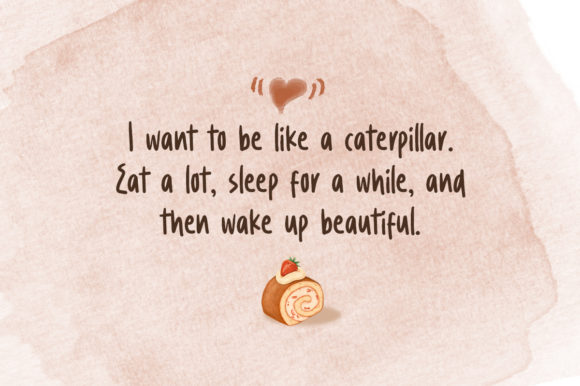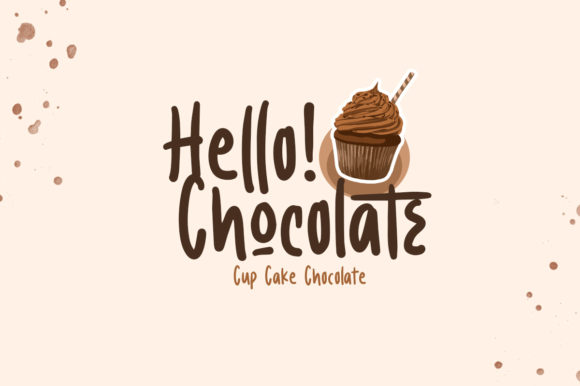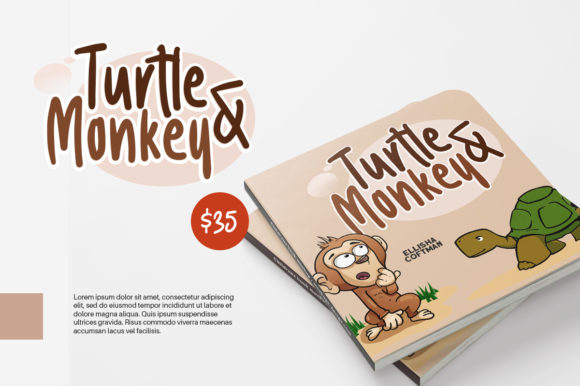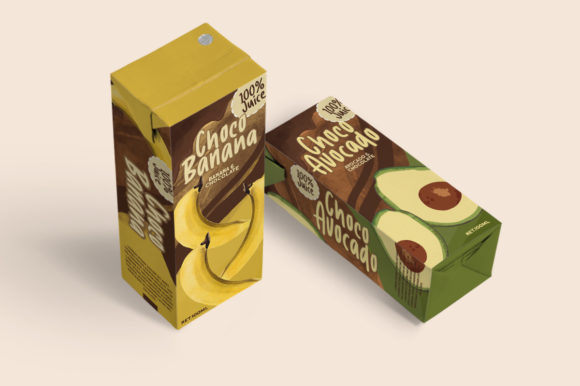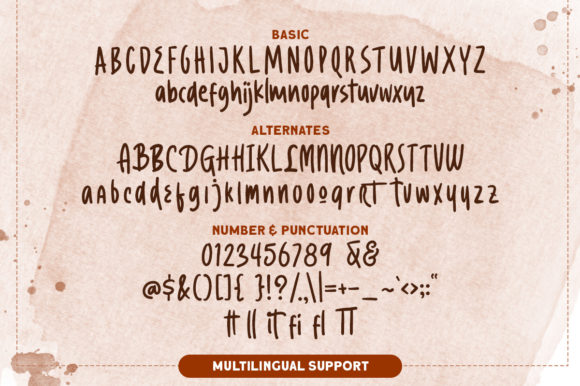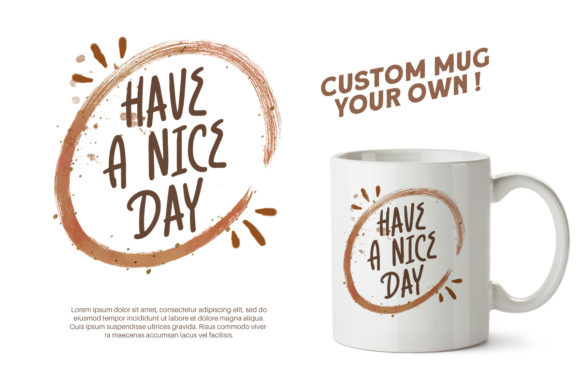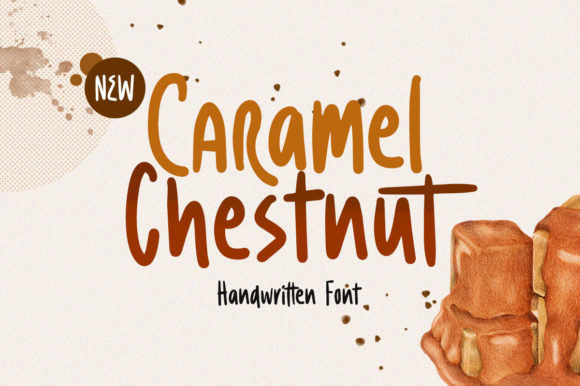
Introducing Caramel Chestnut Font: A Deliciously Quirky Display Font
Are you tired of using the same old fonts for your designs? Look no further than the Caramel Chestnut font! This unique and interesting display font is sure to add a touch of personality to any project. With its quirky charm, Caramel Chestnut is a great choice for a wide variety of contexts, from crafting and DIY projects to branding and advertising.
The Inspiration Behind Caramel Chestnut
Caramel Chestnut is a font that is inspired by the warmth and richness of caramel and the earthy tones of chestnuts. The font’s creator aimed to capture the essence of these delicious treats and put it into a font that would be both fun and functional. The result is a font that is both playful and sophisticated, making it perfect for designers and crafters who want to add a little something extra to their work.
What Makes Caramel Chestnut So Special?
So, what sets Caramel Chestnut apart from other fonts? Here are just a few things that make it so special:
- Unique Character Set: Caramel Chestnut has a unique character set that includes a range of letters, numbers, and punctuation marks. The font also includes a number of alternative characters and ligatures, making it perfect for creating custom designs.
- Quirky Charm: Caramel Chestnut has a quirky charm that is hard to find in other fonts. The font’s irregular shapes and playful curves make it perfect for adding a touch of personality to any design.
- Highly Versatile: Despite its quirky nature, Caramel Chestnut is a highly versatile font that can be used in a wide range of contexts. Whether you’re designing a logo, creating a craft project, or working on a branding campaign, Caramel Chestnut is a great choice.
Using Caramel Chestnut in Your Designs
So, how can you use Caramel Chestnut in your designs? Here are a few ideas to get you started:
- Crafting and DIY Projects: Caramel Chestnut is a great choice for crafting and DIY projects, such as making signs, labels, and other decorative items.
- Branding and Advertising: The font’s unique character and quirky charm make it perfect for branding and advertising campaigns that want to stand out from the crowd.
- Digital Designs: Caramel Chestnut can also be used in digital designs, such as social media graphics, blog posts, and website headers.
Tips for Getting the Most Out of Caramel Chestnut
Here are a few tips for getting the most out of Caramel Chestnut:
- Experiment with Different Sizes: Caramel Chestnut looks great in a range of sizes, from small and delicate to large and bold. Experiment with different sizes to find the one that works best for your design.
- Play with Color: The font’s warm, earthy tones make it perfect for designs that feature natural colors, such as brown, green, and beige. Experiment with different colors to find the one that works best for your design.
- Mix and Match: Caramel Chestnut can be paired with a range of other fonts to create a unique and interesting design. Experiment with different font combinations to find the one that works best for your project.
In conclusion, Caramel Chestnut is a unique and interesting display font that is sure to add a touch of personality to any design. With its quirky charm and highly versatile nature, it’s perfect for designers and crafters who want to create something truly special. Whether you’re working on a crafting project, a branding campaign, or a digital design, Caramel Chestnut is a great choice. So why not give it a try and see what delicious designs you can create?